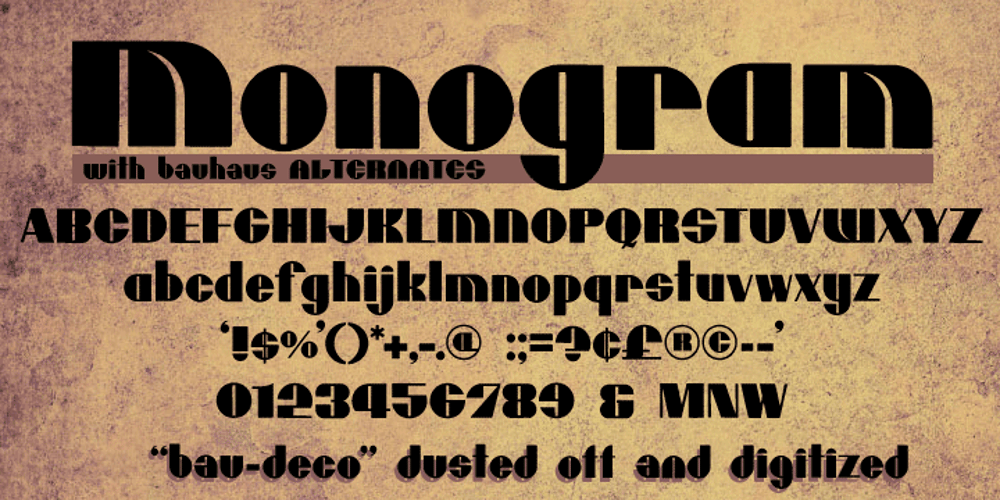
MCM Monogram
MCM Monogram font
MCM Monogram Font Family was designed by Noah Rothschild and published by Victory Type. MCM Monogram contains 3 styles and family package options. Victory Type Studios is pleased to announce the release of Monogram, the second typeface from the growing Mid-Century Modern Collection–a set of vintage typefaces rescued from the dustbin of history and rendered for digital use from scans of primary source material. Monogram is a long lost font from the 1960s, one whose design is half Art Deco and half European modernism. Monogram is what happens when Bauhaus and Britannica collide. Monogram boasts bold, geometric shapes and two distinct alphabets—some with square corners, some round, and even a handful of alternate glyphs. MCM Monogram is available for Mac and PC, in TrueType and OpenType formats. Includes kerning.